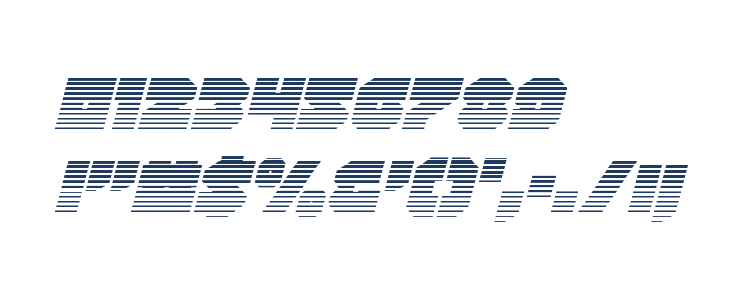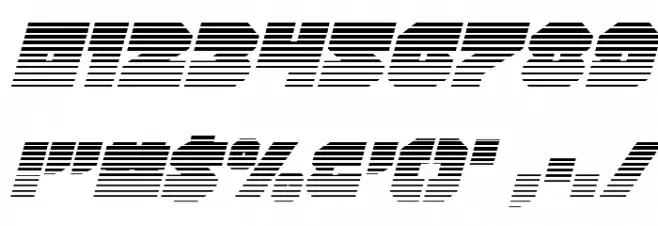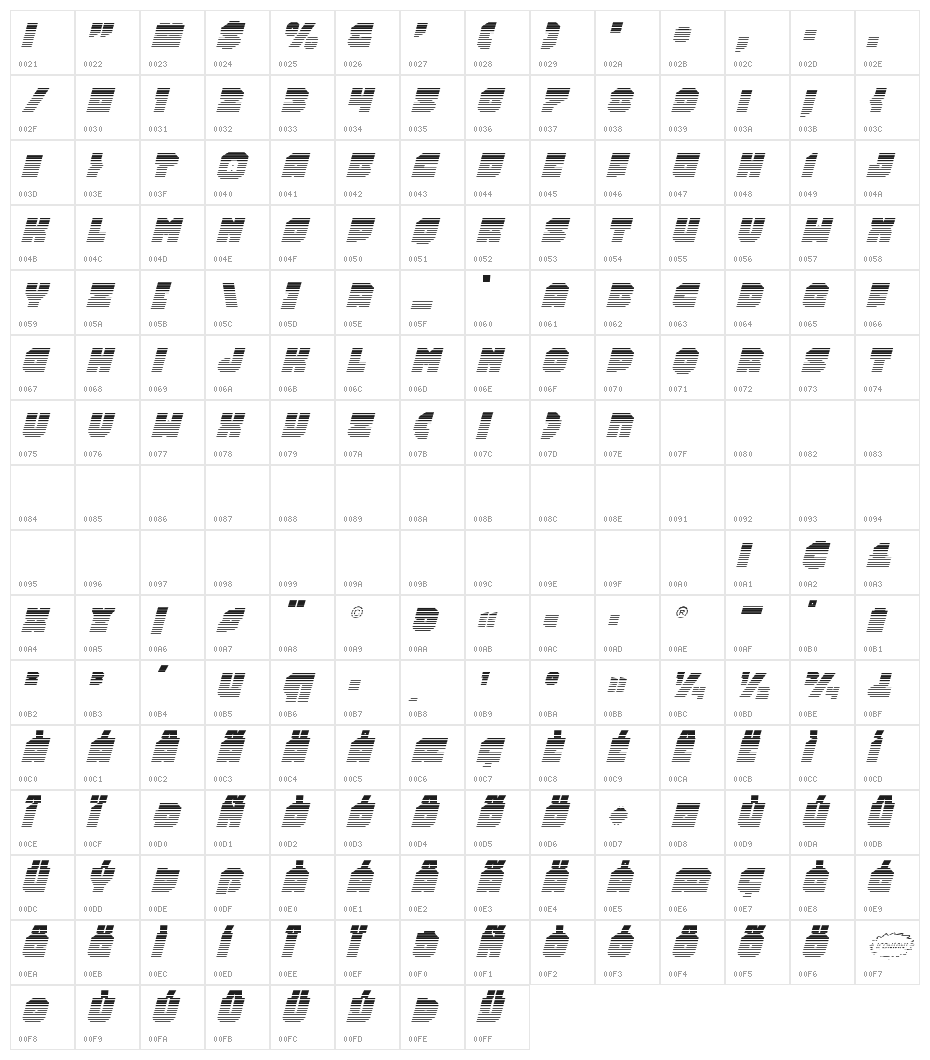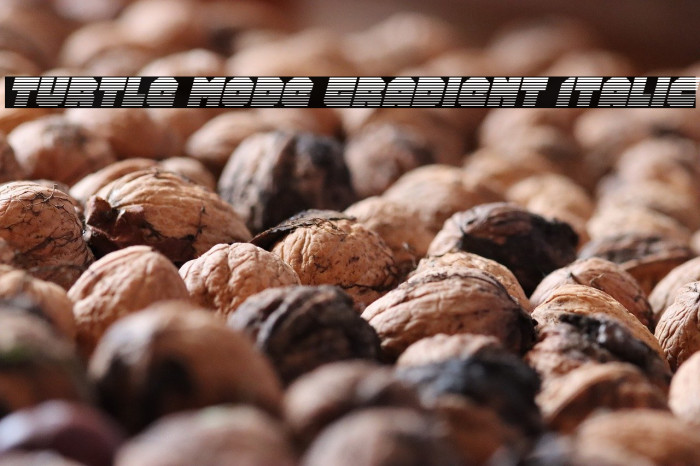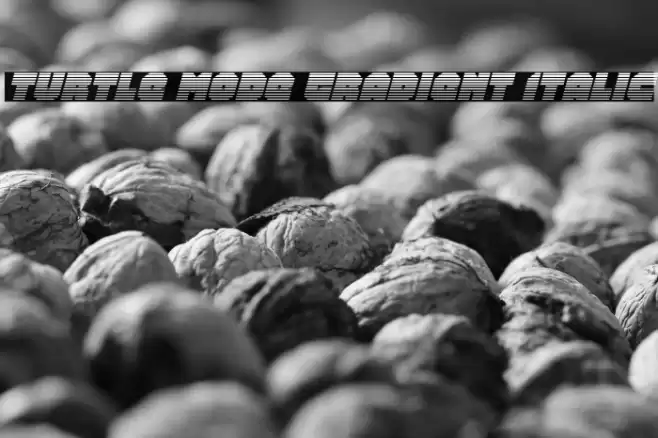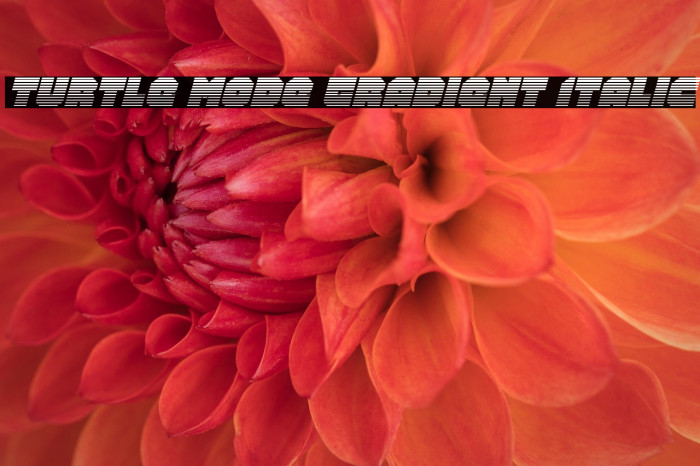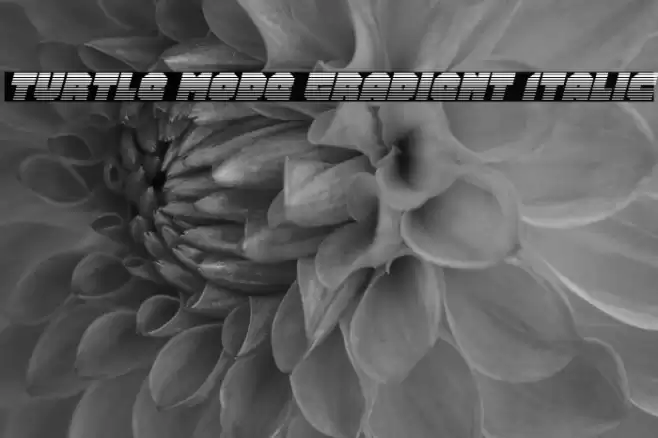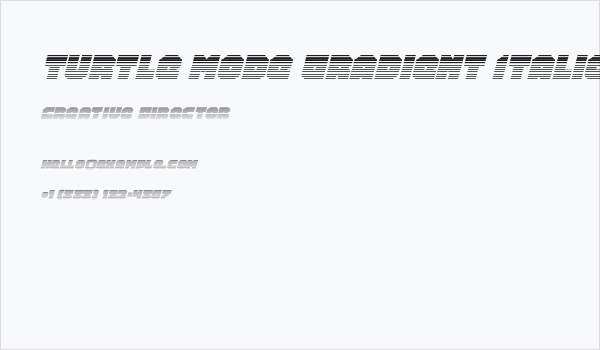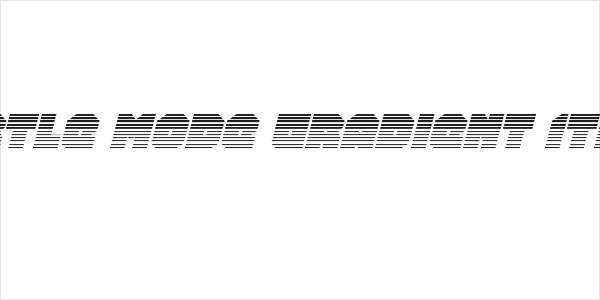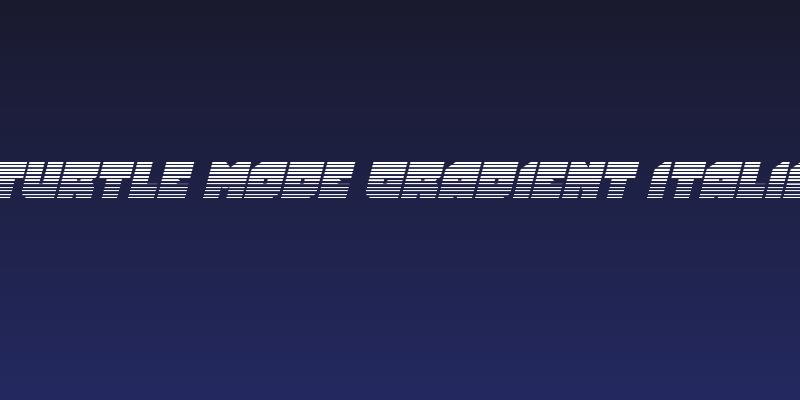
Turtle Mode Gradient Italic Font
Turtle Mode Gradient Italic Description
This font features a unique striped design that gives it a dynamic and modern appearance. Each character is composed of horizontal lines that create a gradient effect, enhancing its visual appeal. The italic style adds a sense of motion and fluidity, making it stand out in any design. The uppercase and lowercase letters maintain a consistent style, while the numbers and special characters are equally distinct and cohesive. This font is ideal for projects that require a bold and eye-catching typeface.
| Proposed Projects | Ideal for futuristic designs, tech branding, sports team logos, and dynamic posters. |